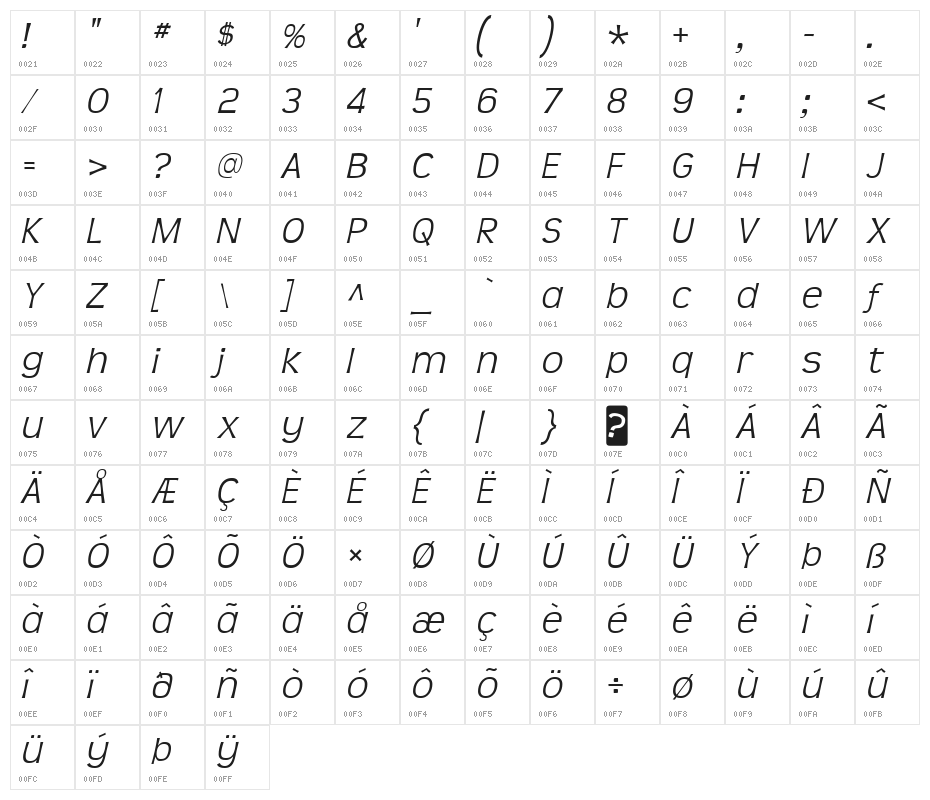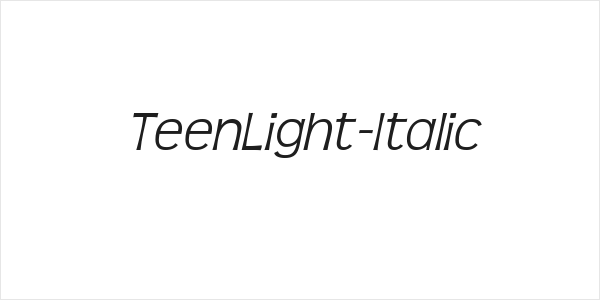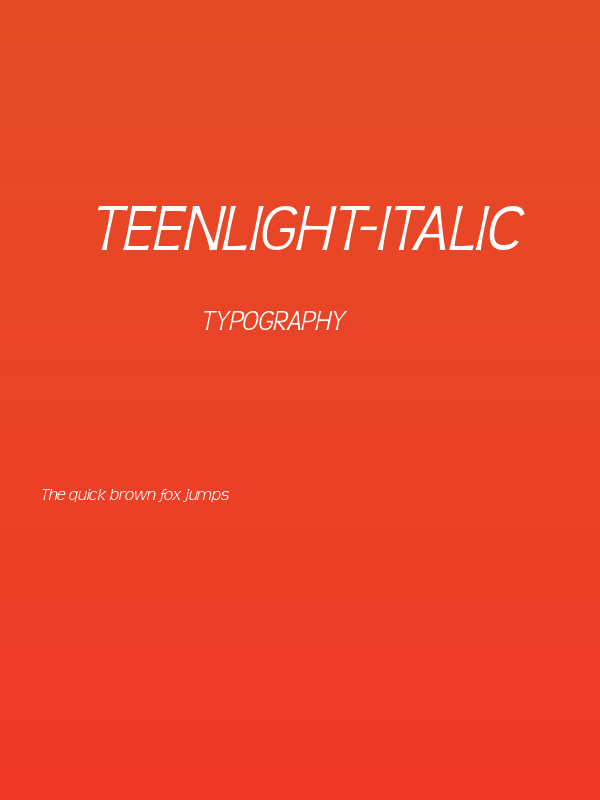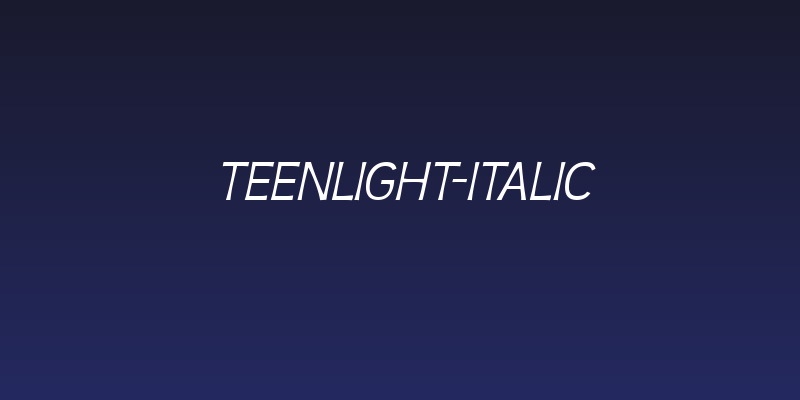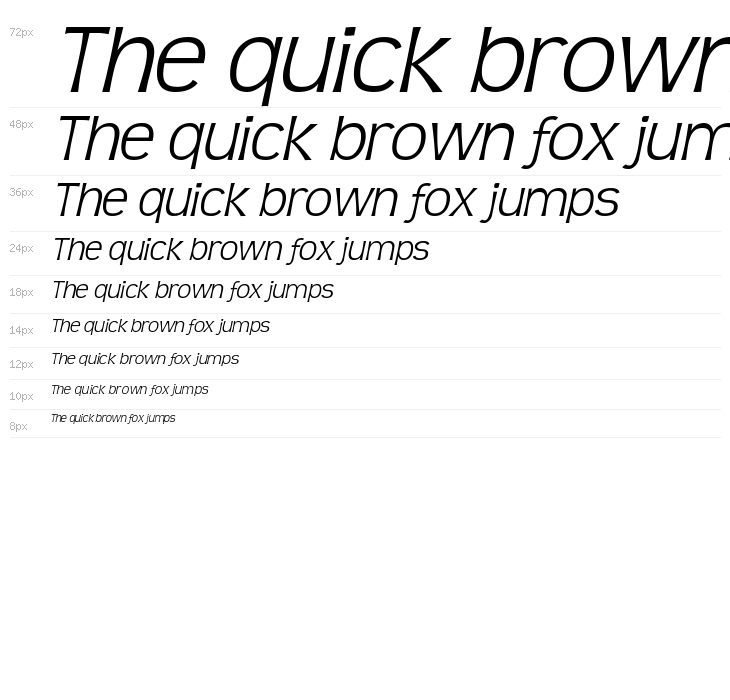
TeenLight-Italic Font
TeenLight-Italic Description
This font features a sleek and modern design with a slight italic slant, giving it a dynamic and forward-moving appearance. The characters are crafted with a light weight, providing an airy and elegant feel. The sans-serif style ensures clean lines and a contemporary look, making it versatile for various applications. The spacing between characters is normal, allowing for readability while maintaining a stylish aesthetic. The font's low contrast in stroke thickness contributes to its minimalist and streamlined design, suitable for projects that require a subtle yet sophisticated touch.
| Proposed Projects | Ideal for fashion magazines, modern branding, digital content, and elegant invitations. |